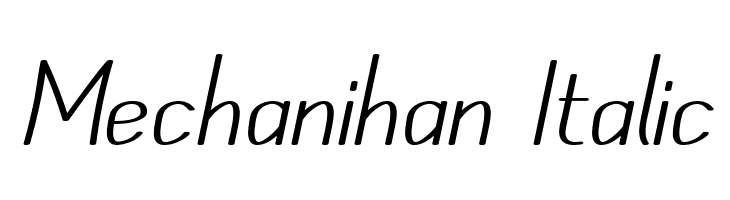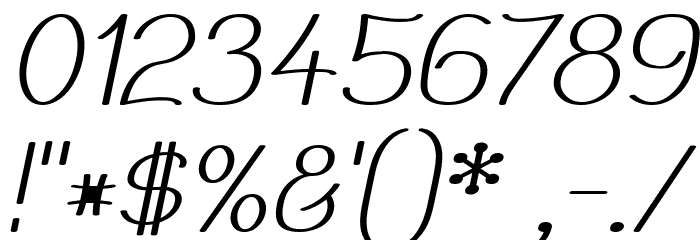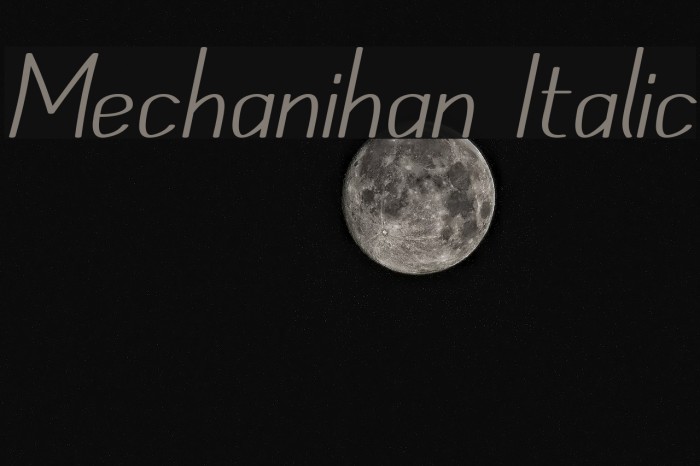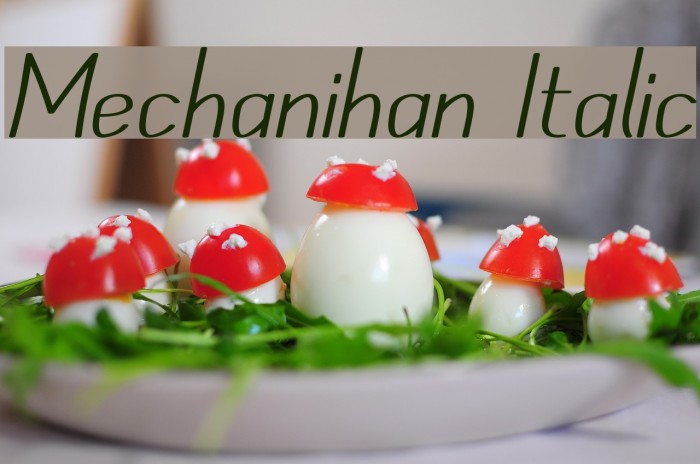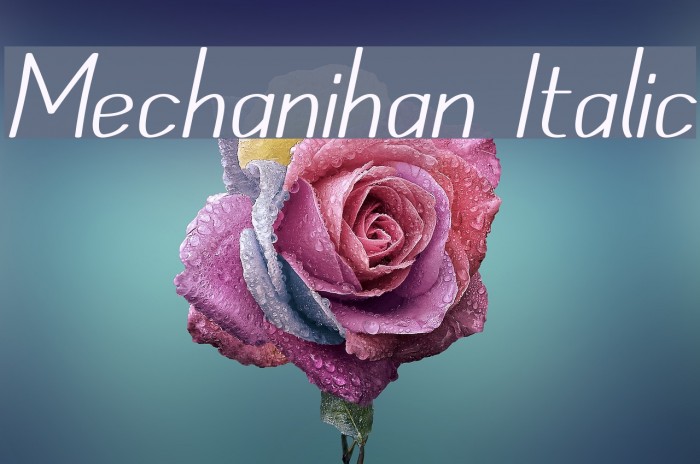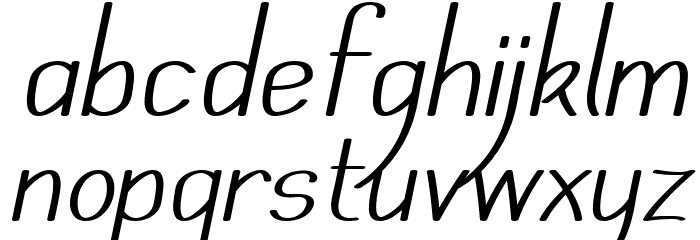
Mechanihan Italic Font
Mechanihan Italic Description
This font features a sleek, italicized style with a modern twist. Its characters are elongated and slightly slanted, giving it a dynamic and fluid appearance. The uppercase letters are tall and narrow, while the lowercase letters maintain a consistent flow with rounded edges. The numerals are clear and distinct, matching the overall aesthetic. Special characters are elegantly integrated, maintaining the font's cohesive look. The thin strokes and minimal contrast contribute to its contemporary feel, making it suitable for a variety of design applications.
A modern, italicized font with sleek, elongated characters and minimal contrast from Uncategorized fonts.